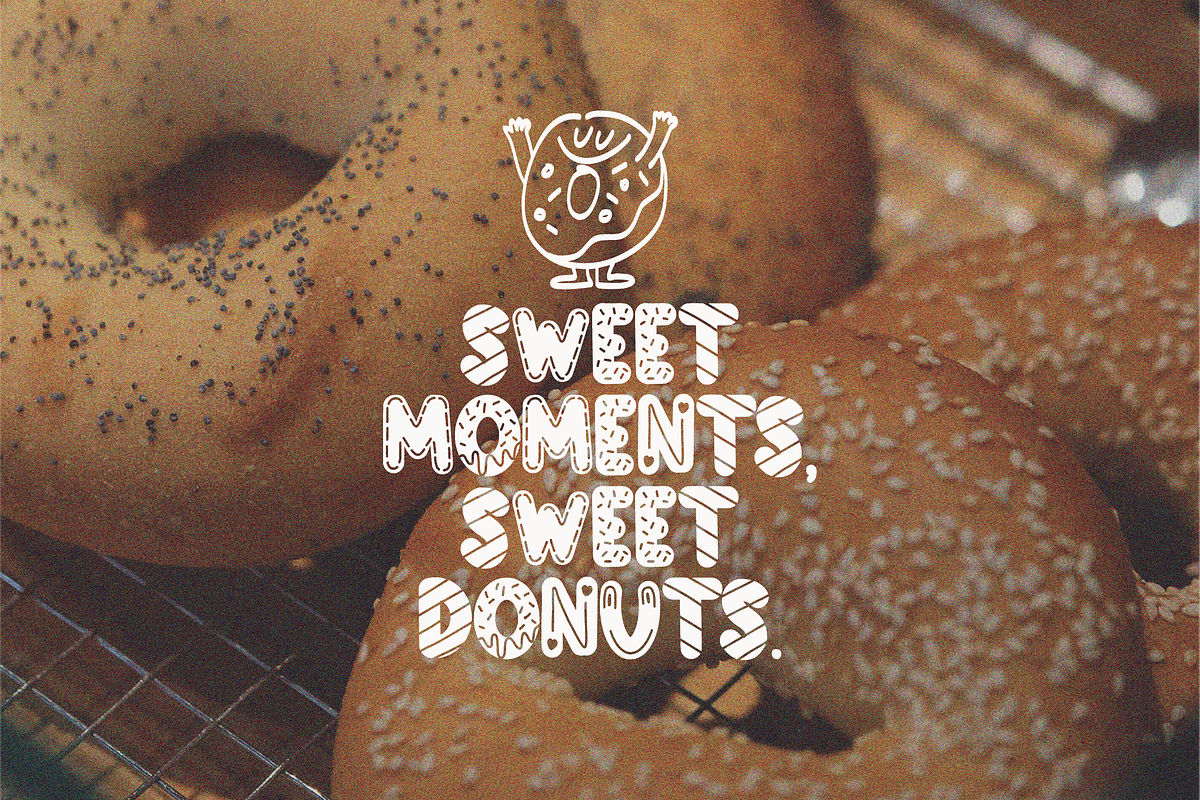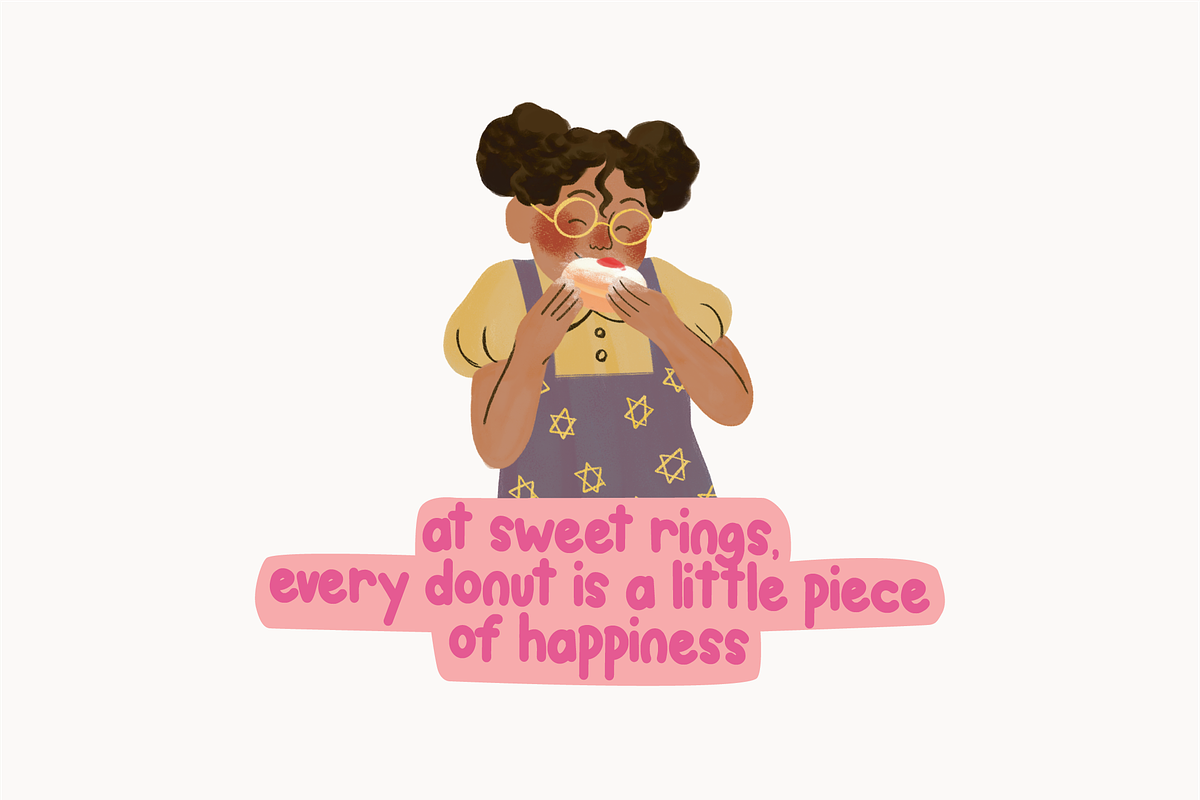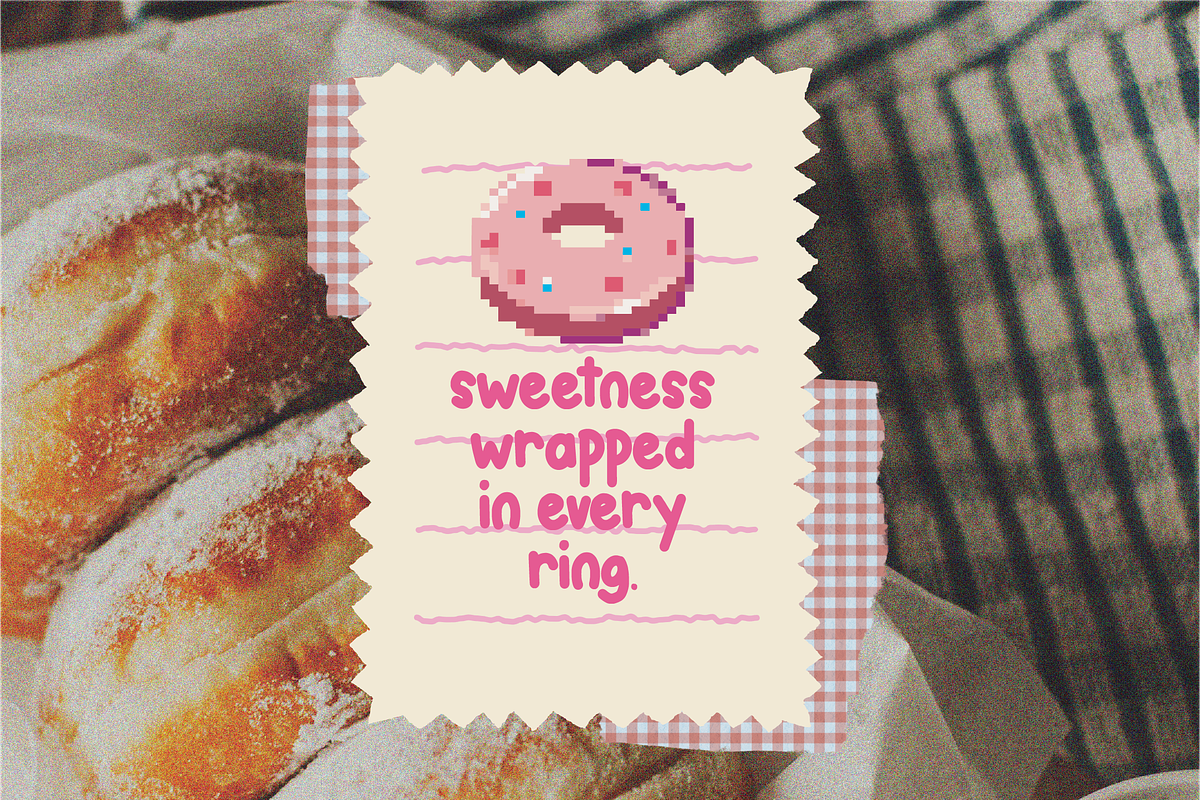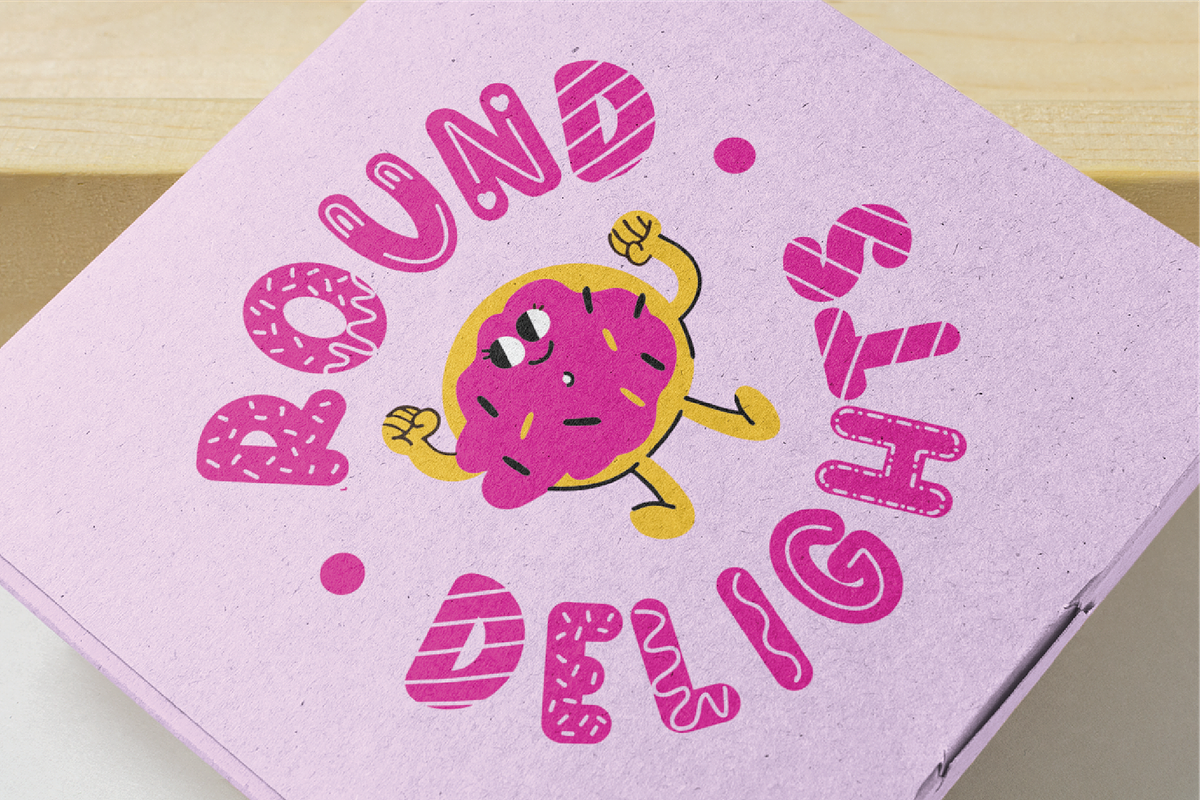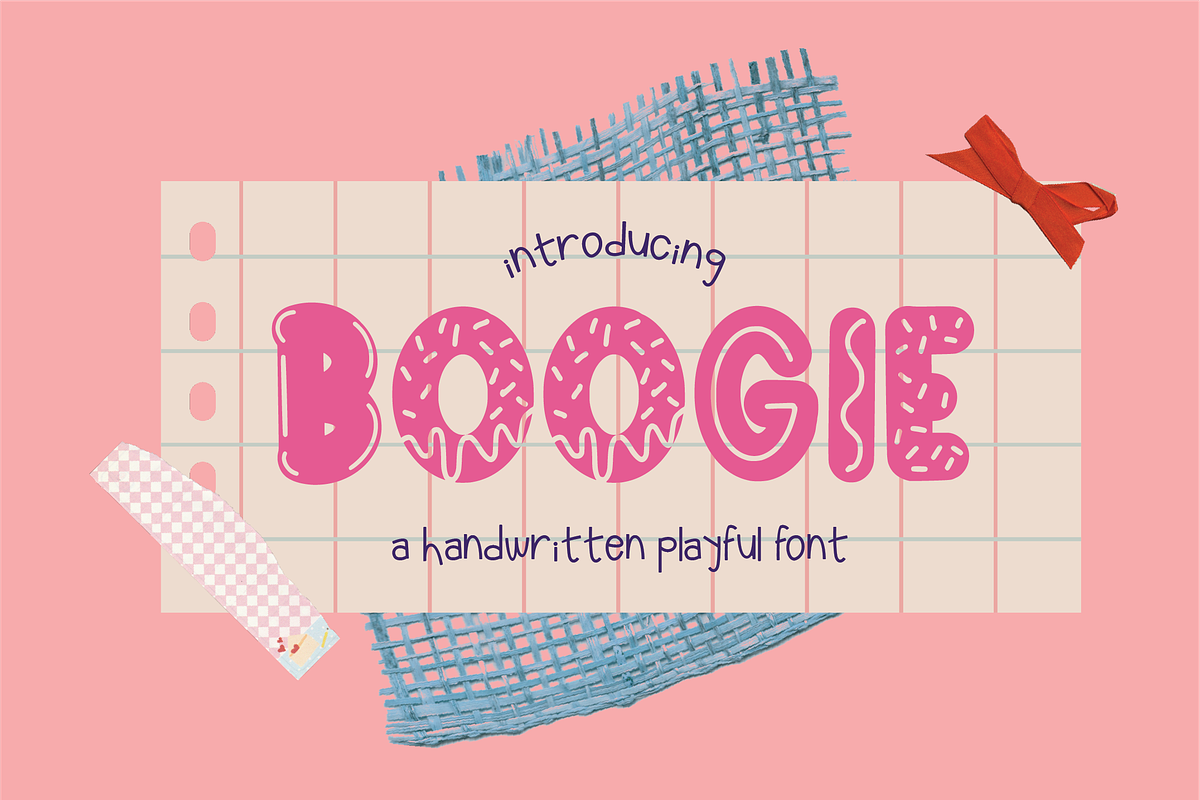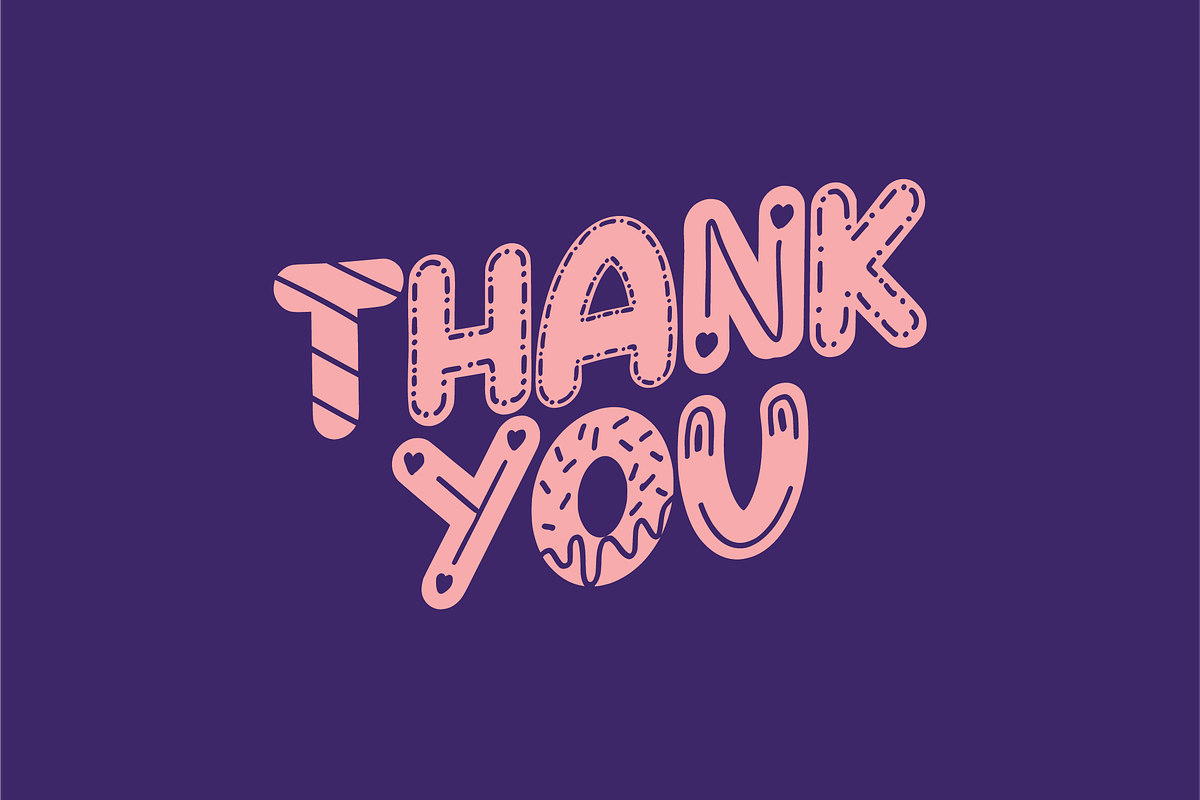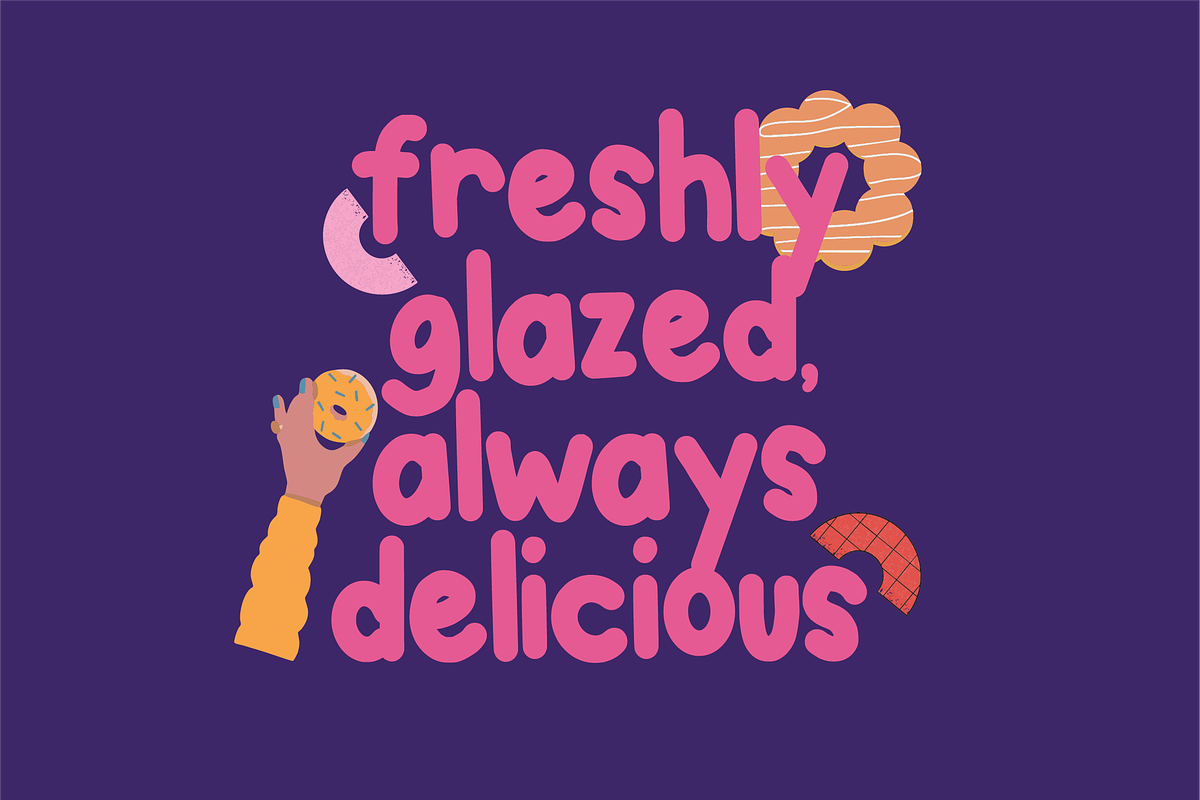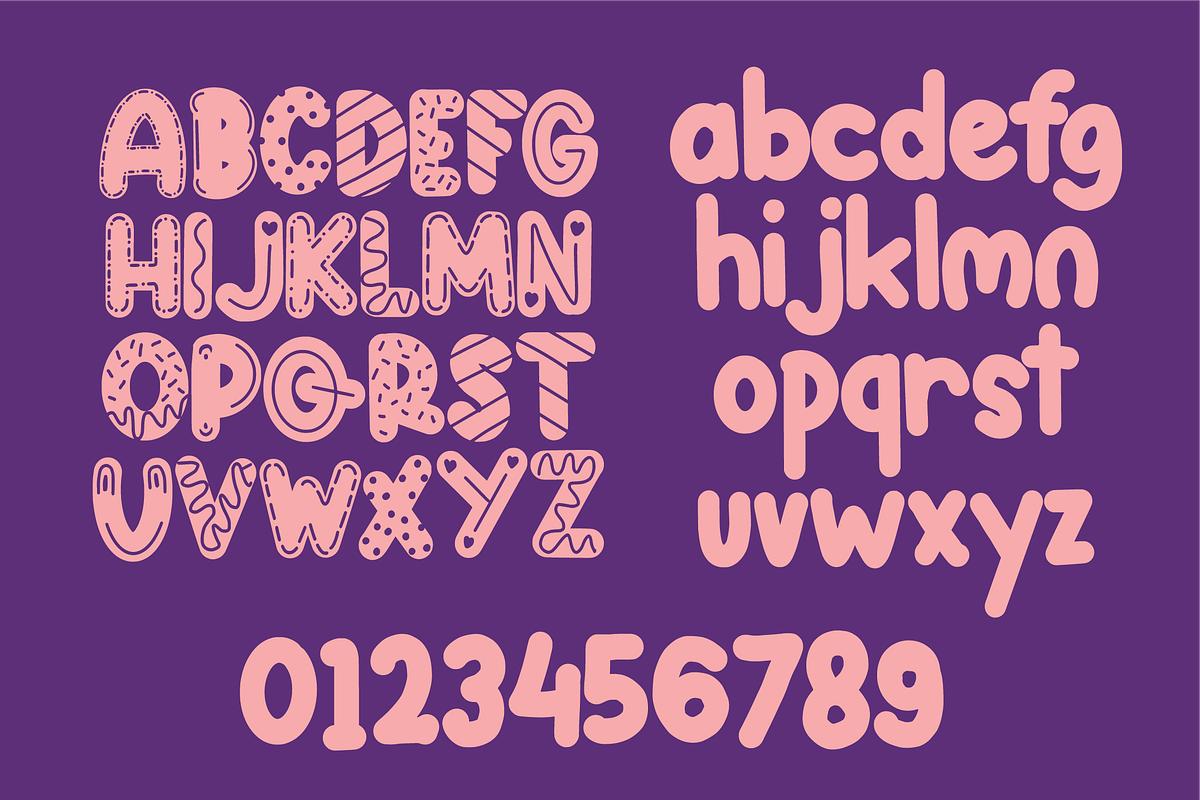
Boogie - Handwritten Playful Font
Boogie The font in this design is playful, bold, and whimsical, with a cartoonish style. The letters are rounded and chunky, creating a sense of fun and light-heartedness.